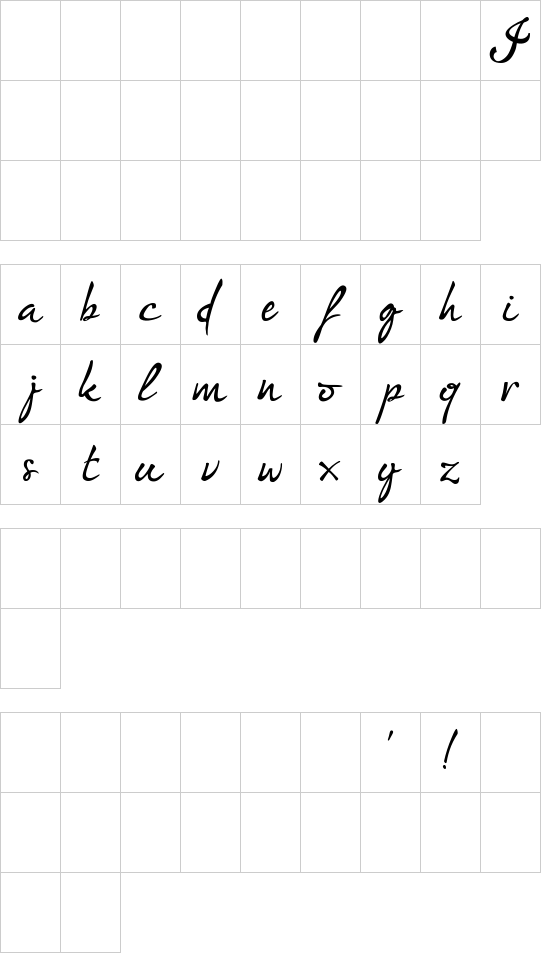
I'm fashionista! FREE-version is a chic handwritten script with thin, stylish strokes and a light, modern hand. The lines are slender and the connections delicate, giving the type a trendy, fashion-magazine elegance.
That chic character fits fashion branding, beauty blogs, boutique signage, and elegant social media graphics. I'm fashionista! is free to download as a TrueType file, and you can preview your own wording to see how the thin strokes connect before you use it.